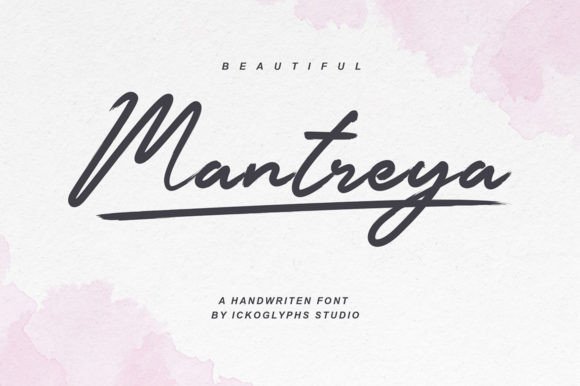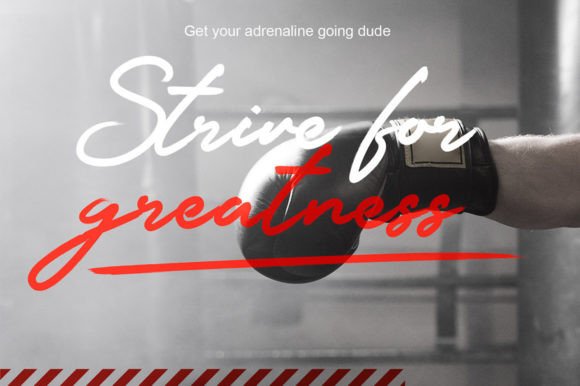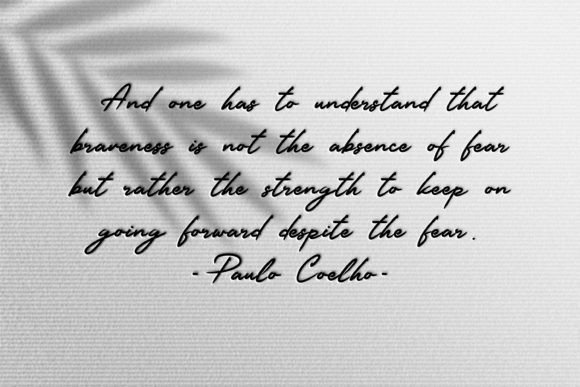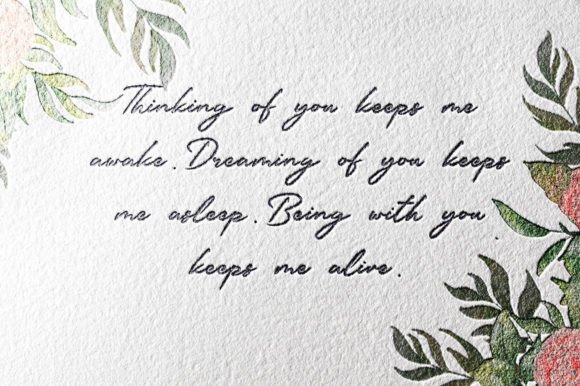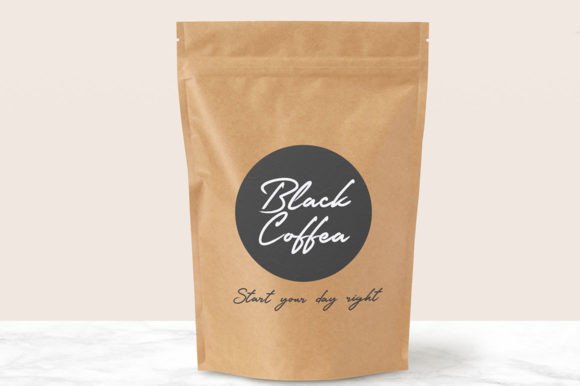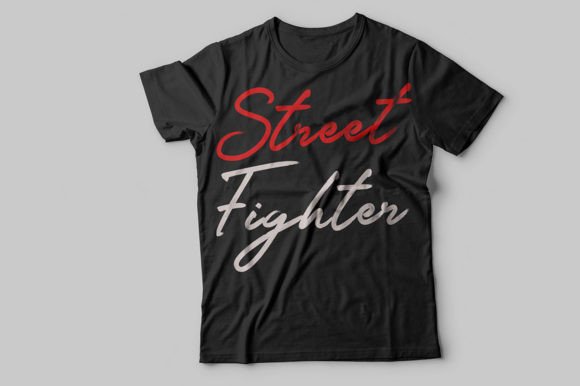
**Mantreya: A Sweet and Delicate Handwritten Font for Romantic Designs**
**Mantreya** is a sweet and delicate handwritten font that brings a sense of joy and elegance to your designs. With its dainty and joyful appearance, this font is ideal for creating wedding invitations, cards, or any design that requires a romantic and personalized touch.
**Mantreya** stands out with its graceful and beautifully crafted handwritten letterforms, exuding a sense of sophistication and charm. The font’s delicate lines and charming curves make it a valuable asset for a variety of projects.
This font’s versatility ensures it can enhance various design applications. Whether you’re working on wedding stationery, greeting cards, social media visuals, or any other creative endeavor, **Mantreya** adds a touch of romantic beauty and personalization to your work.
In wedding invitations, this font infuses a sense of romance and elegance, setting the stage for a memorable celebration.
For cards and personalized messages, **Mantreya** adds a delicate and heartfelt tone, making your sentiments stand out.
In conclusion, **Mantreya** is more than just a font; it’s a design asset that brings a sense of romance and elegance to your creative projects. Whether you’re designing for romantic occasions, personal expression, or various other contexts, choose **Mantreya** to infuse your work with its unique and joyful character. Embrace its sweet and delicate design, and let your creativity shine with a touch of romantic beauty and charm.